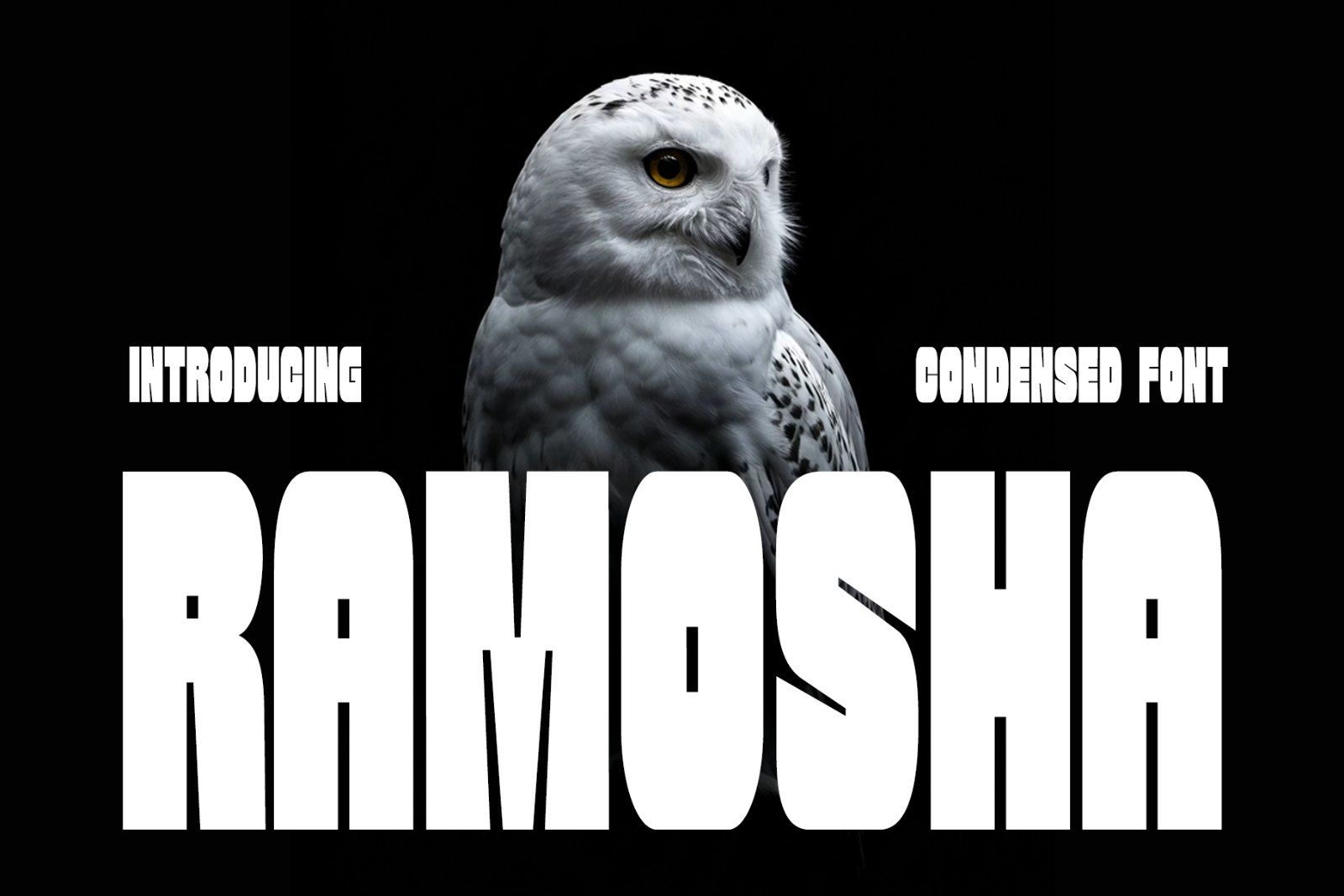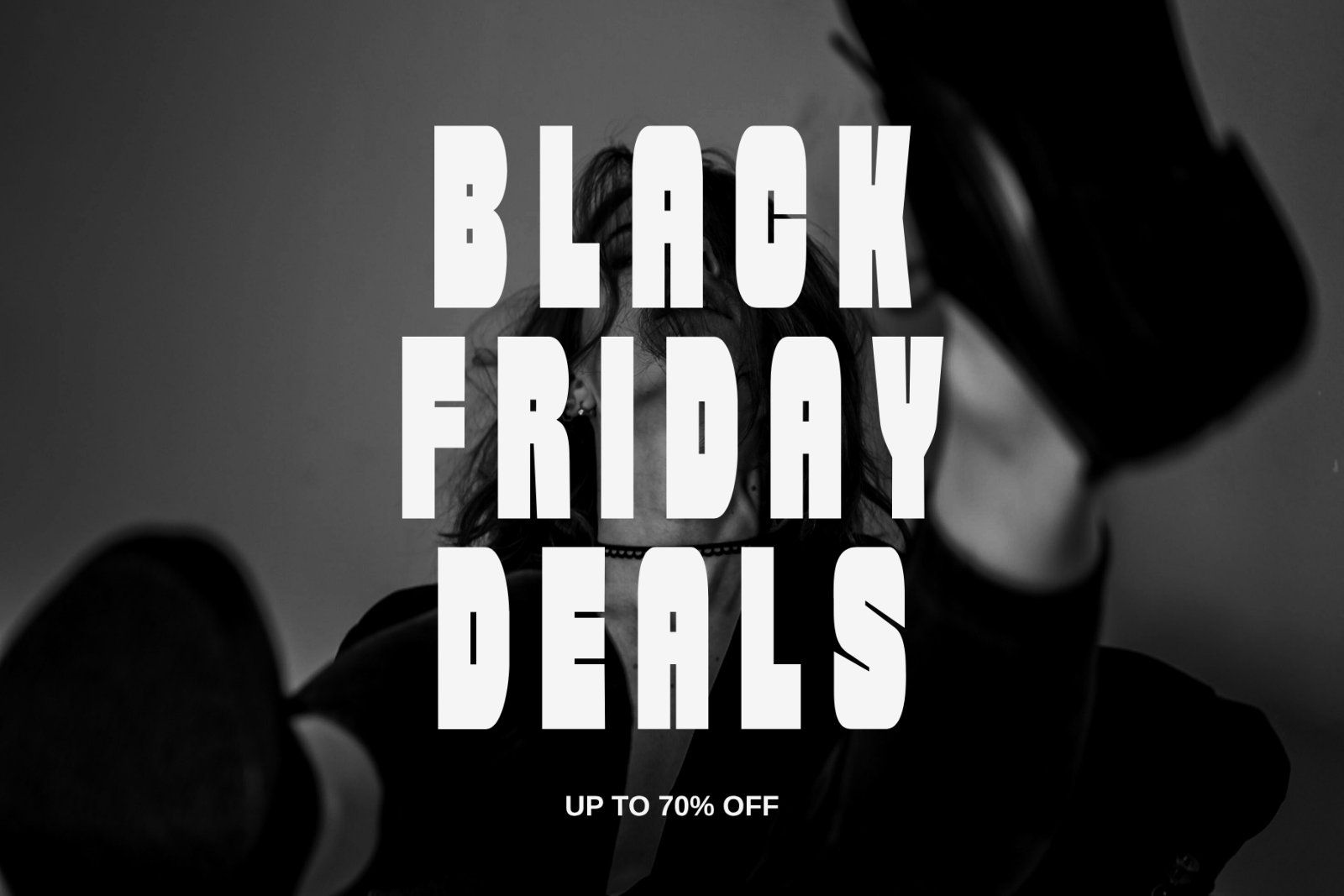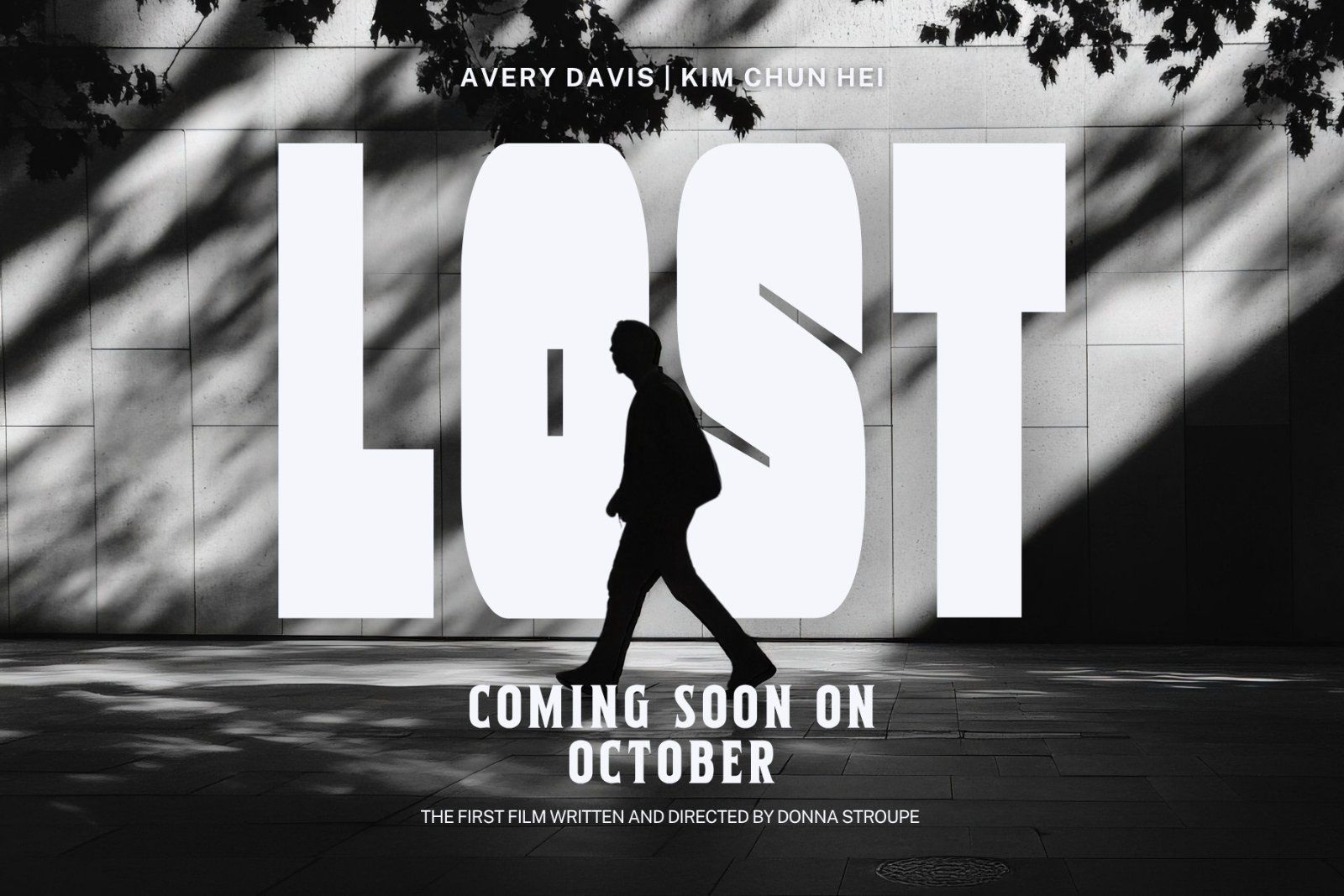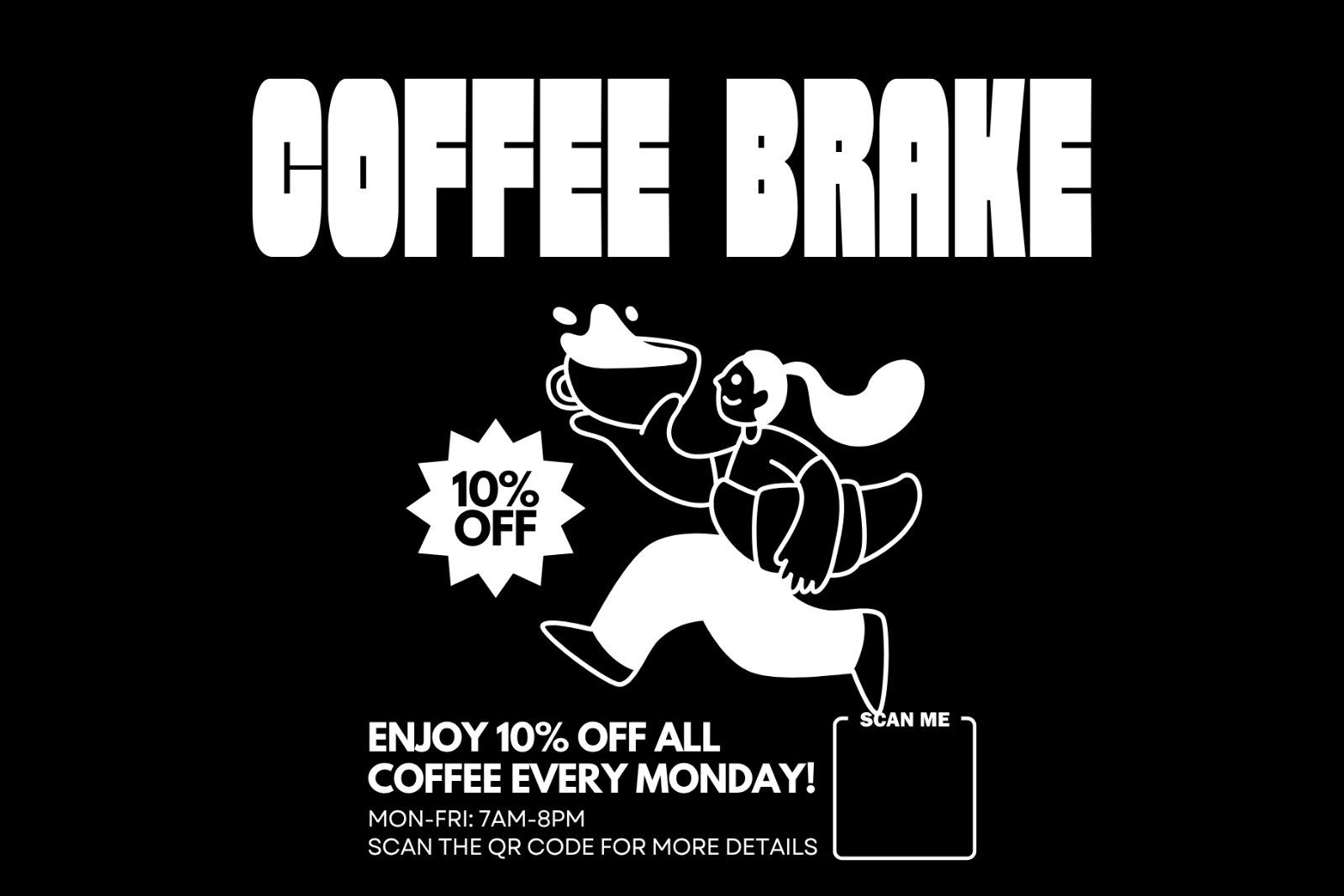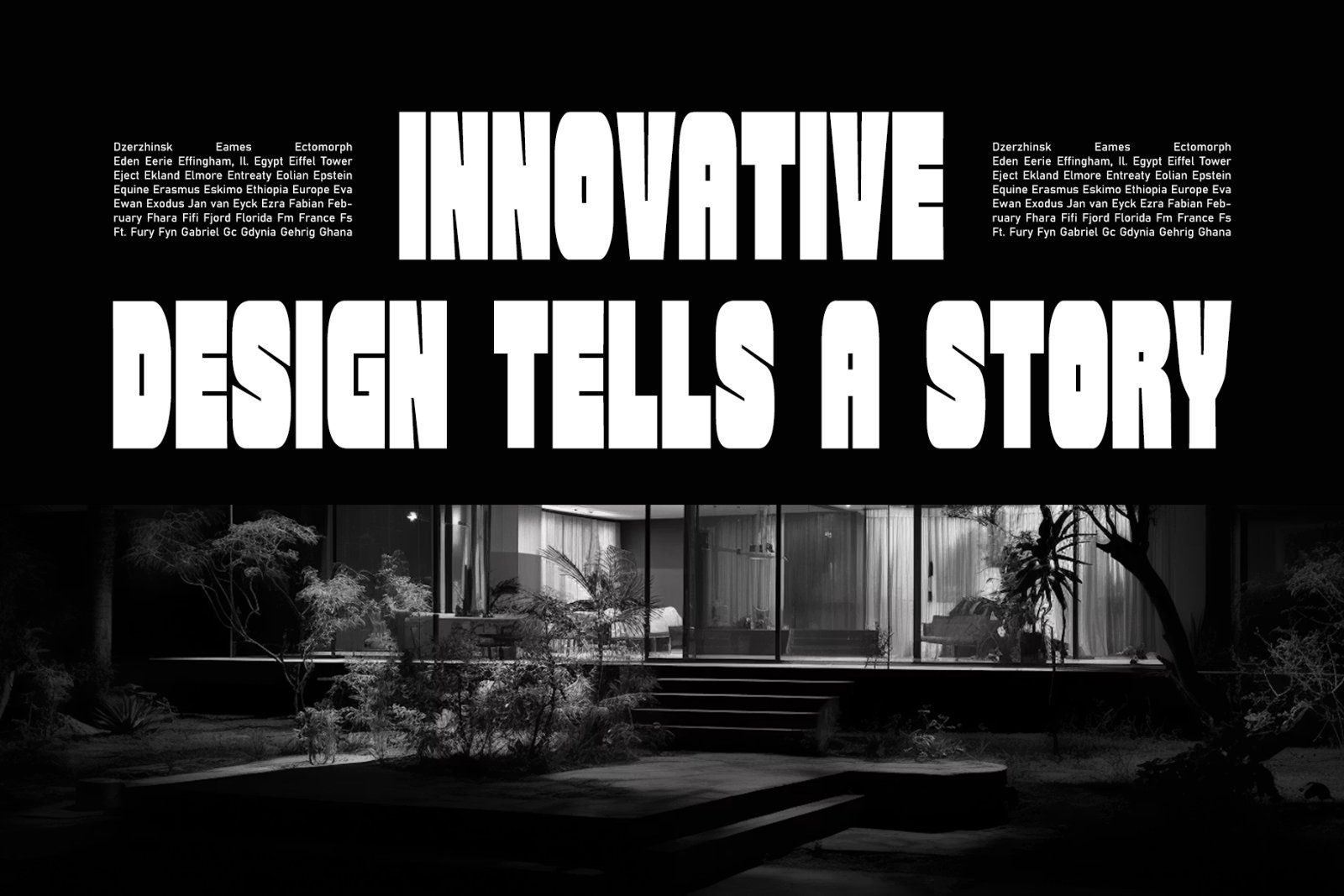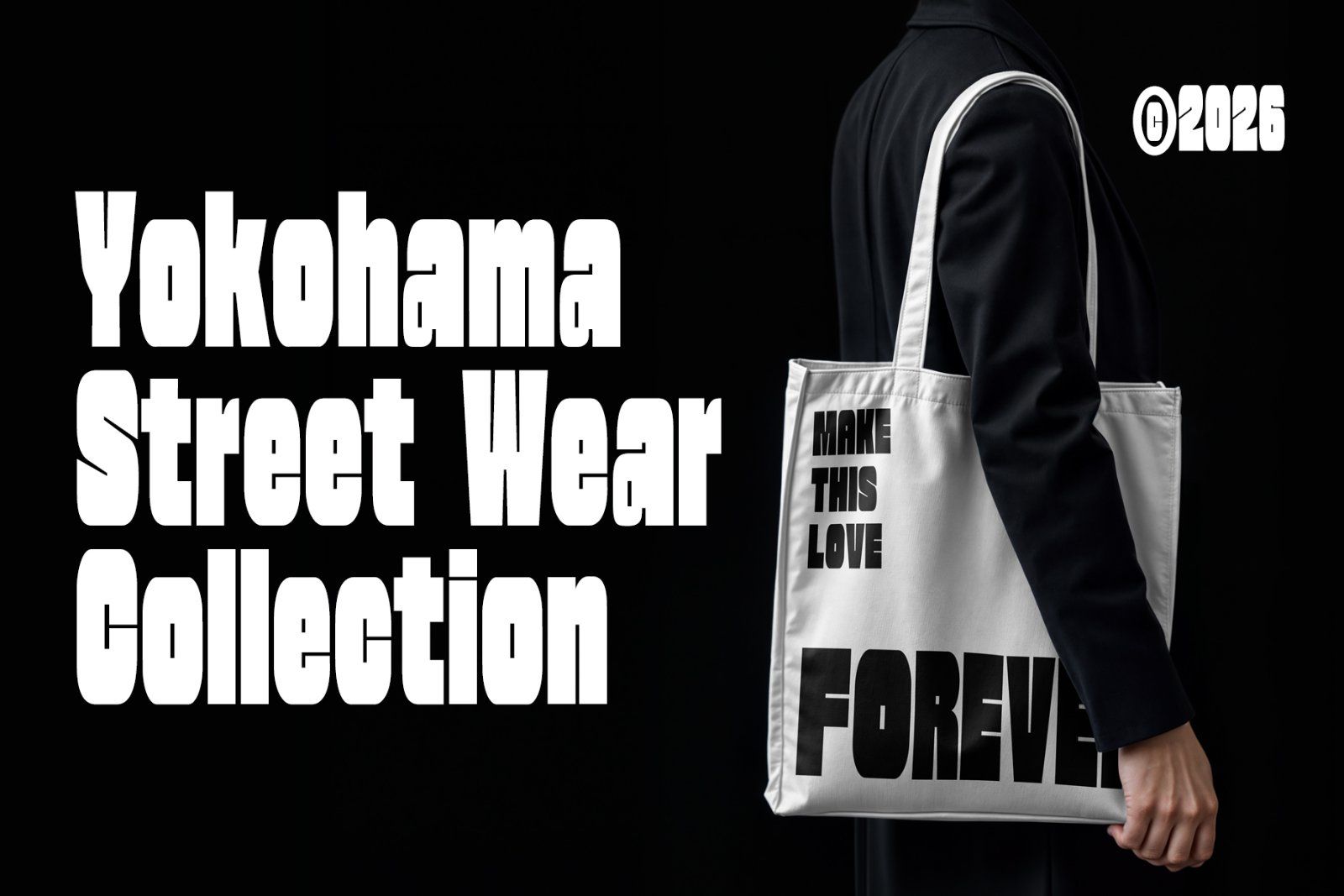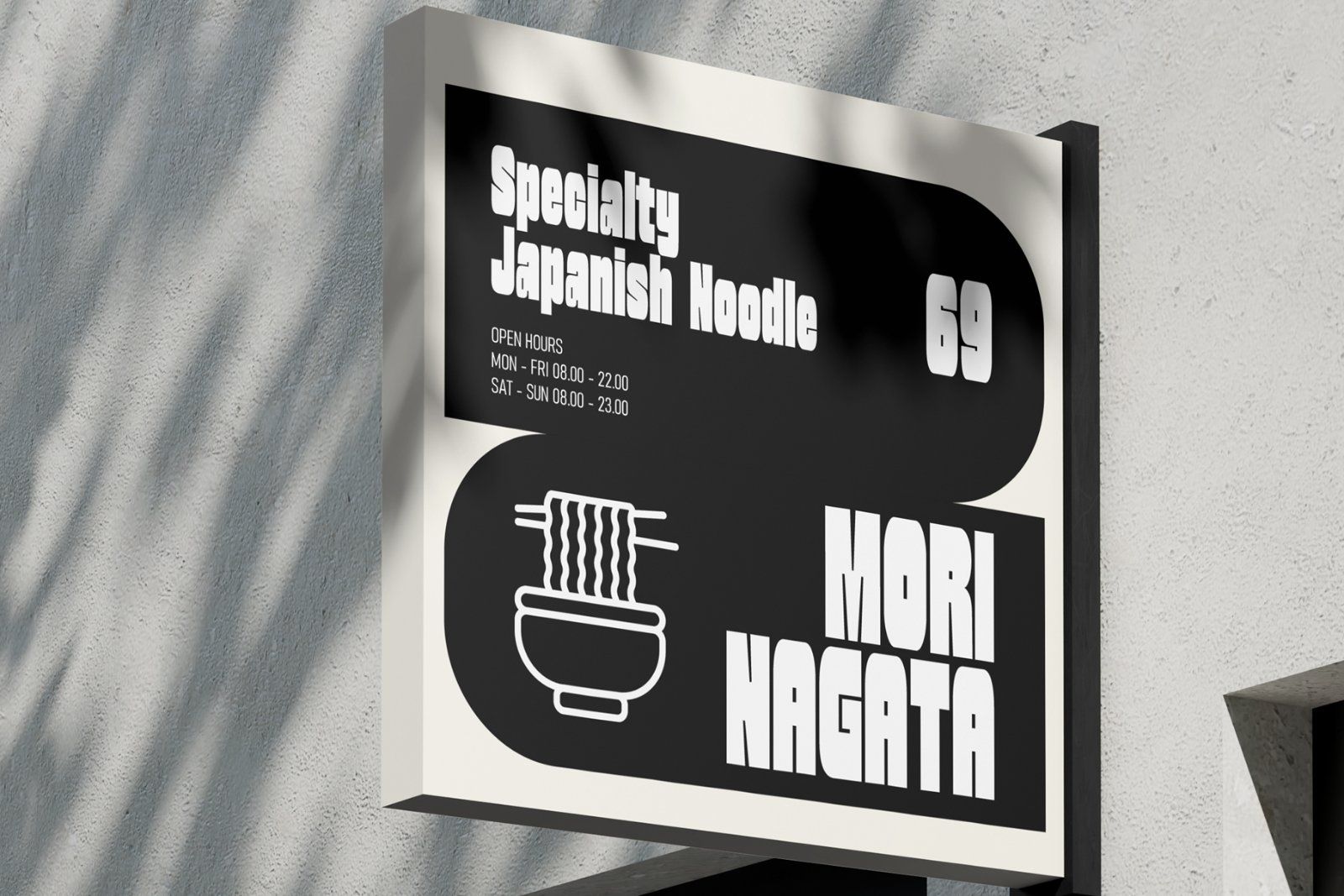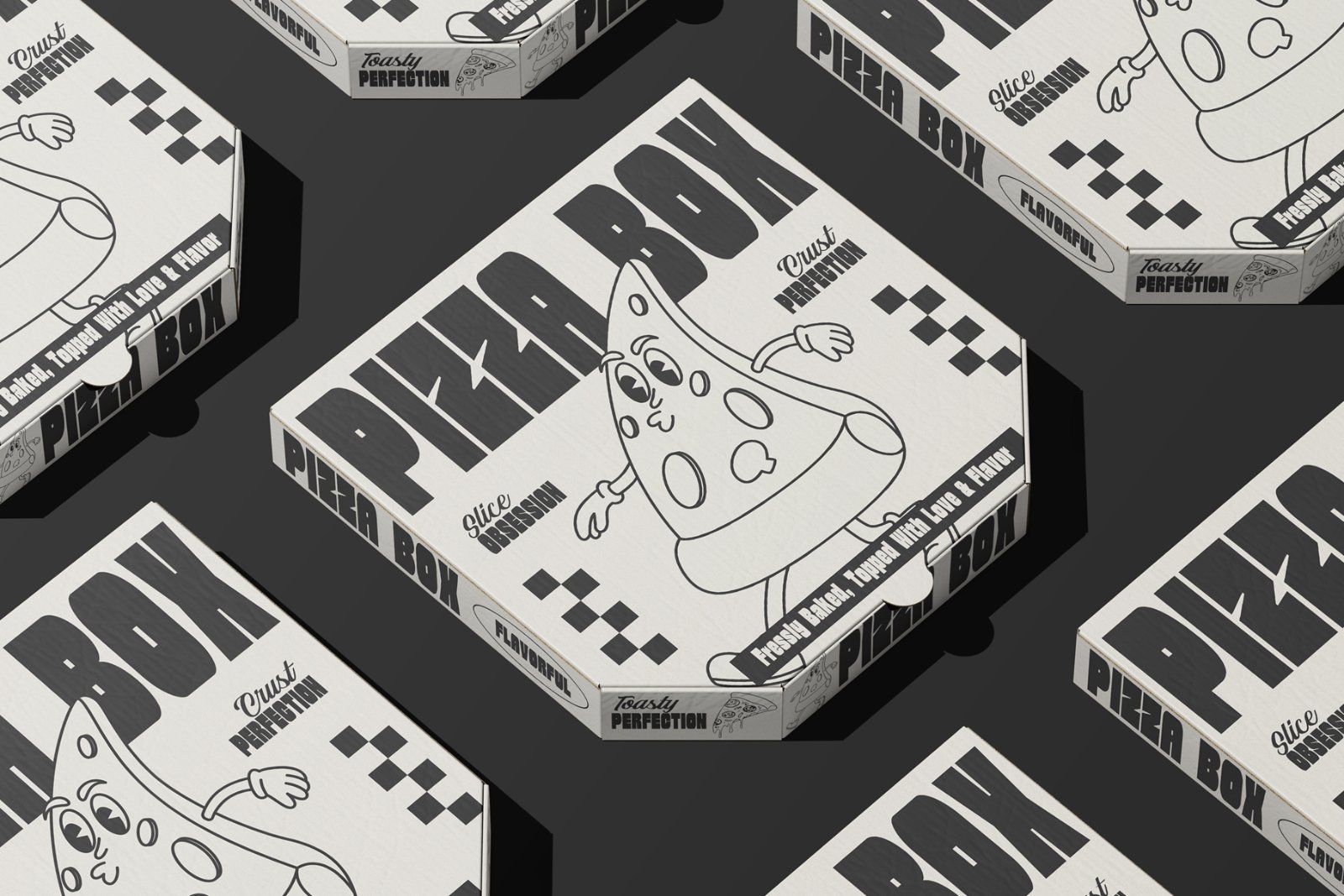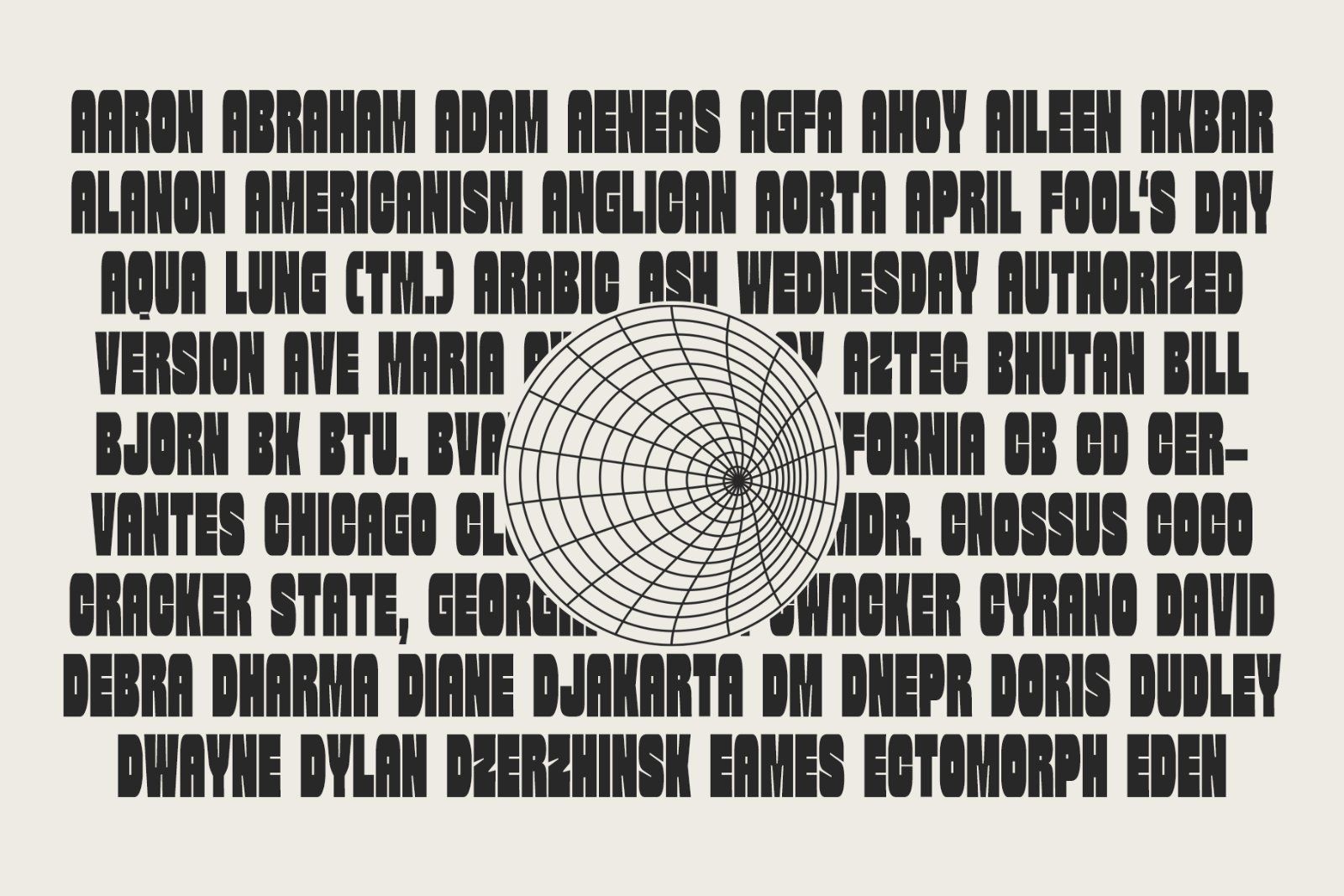
Ramosha is a bold condensed display font designed to create maximum visual impact with minimal space. Featuring tall, powerful letterforms and smooth rounded edges, Ramosha is perfect for headlines, posters, branding, sports graphics, movie titles, magazine covers, packaging, apparel, and social media designs. Its condensed structure allows you to fit more text into tight layouts while maintaining excellent readability and a commanding presence.
Inspired by modern editorial typography and contemporary poster design, Ramosha delivers a clean yet aggressive personality that instantly grabs attention. Whether you're designing for fashion brands, outdoor campaigns, gaming projects, music promotions, or bold advertising, Ramosha gives every project a strong, confident voice.
The font includes uppercase and lowercase characters, numbers, punctuation, multilingual support, and carefully crafted glyphs for professional-quality typography. Ramosha works exceptionally well in large display sizes where every character showcases its unique proportions and striking silhouette.
If you're searching for a modern condensed font that combines bold aesthetics with outstanding versatility, Ramosha is an excellent choice for designers looking to make unforgettable visual statements. Condensed fonts are especially effective for headlines and space-efficient layouts while preserving strong visual presence.